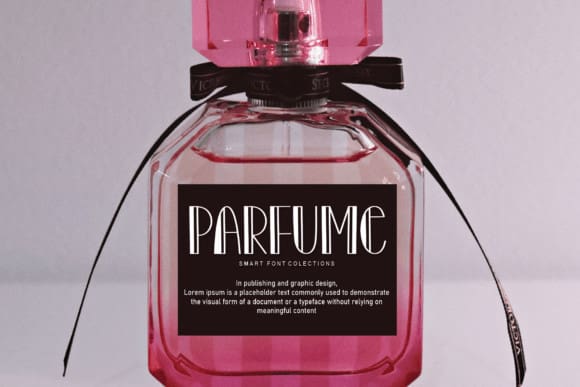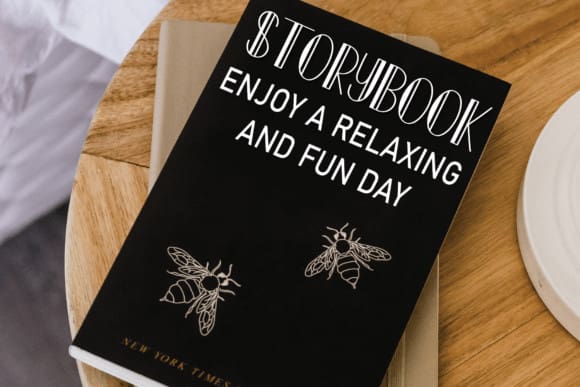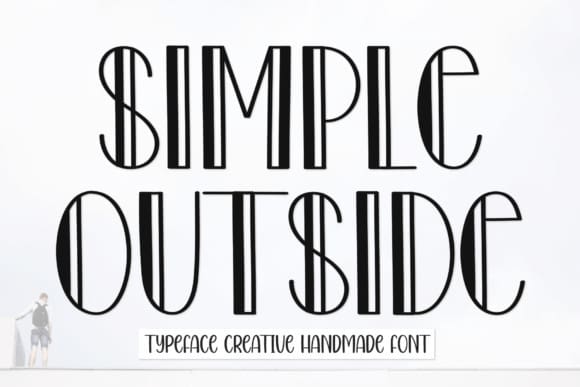
Simple Outside Font
Simple Outside Font is a cool and casual display font. No matter the topic, this font will be an incredible asset to your fonts’ library, as it has the potential to elevate any creation.